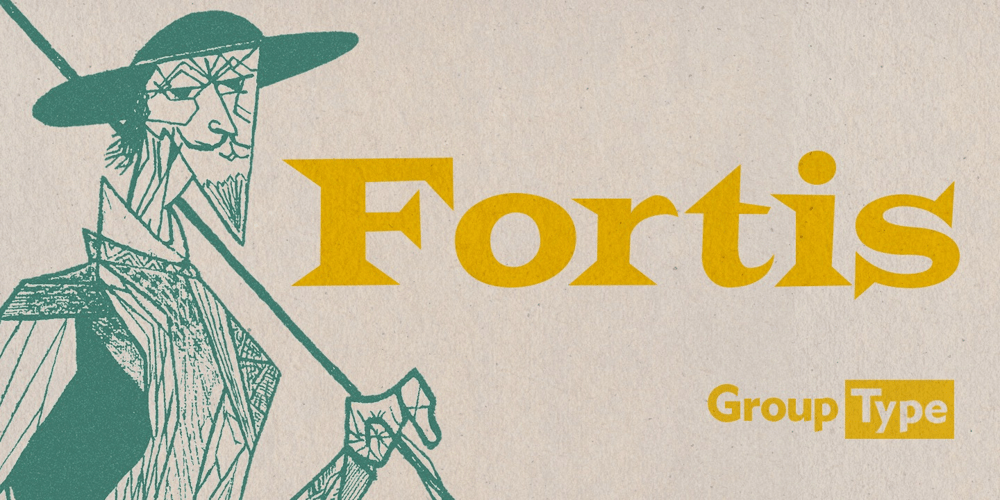
Fortis Font Family was designed by Potomac Latin and published by GroupType. Fortis contains 1 styles and family package options. Formerly named Atlas, Fortis is a 21st century contemporary Latin. Also categorized as a Glyphic, the design was first introduced in the last half of the nineteenth century and is characterized by large, sharp, triangular serifs. Latins were very popular for posters and as a newspaper headline font. Fortis is a Latin with attitude. It is bouncy and much more animated than its predecessors. As a display font, it brings motion and playful personality to a design. Great for party invitations, packaging, headlines, and children’s books!